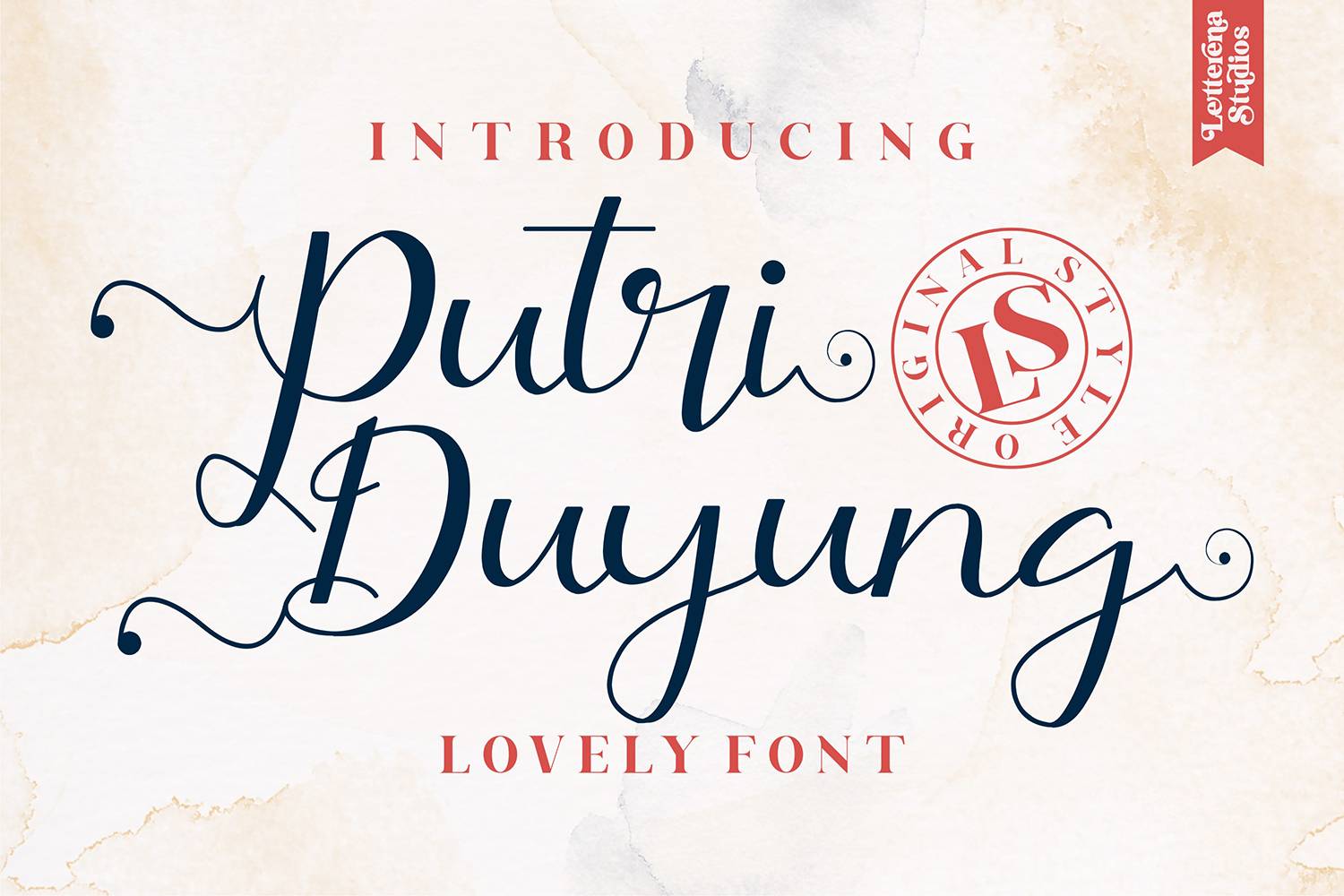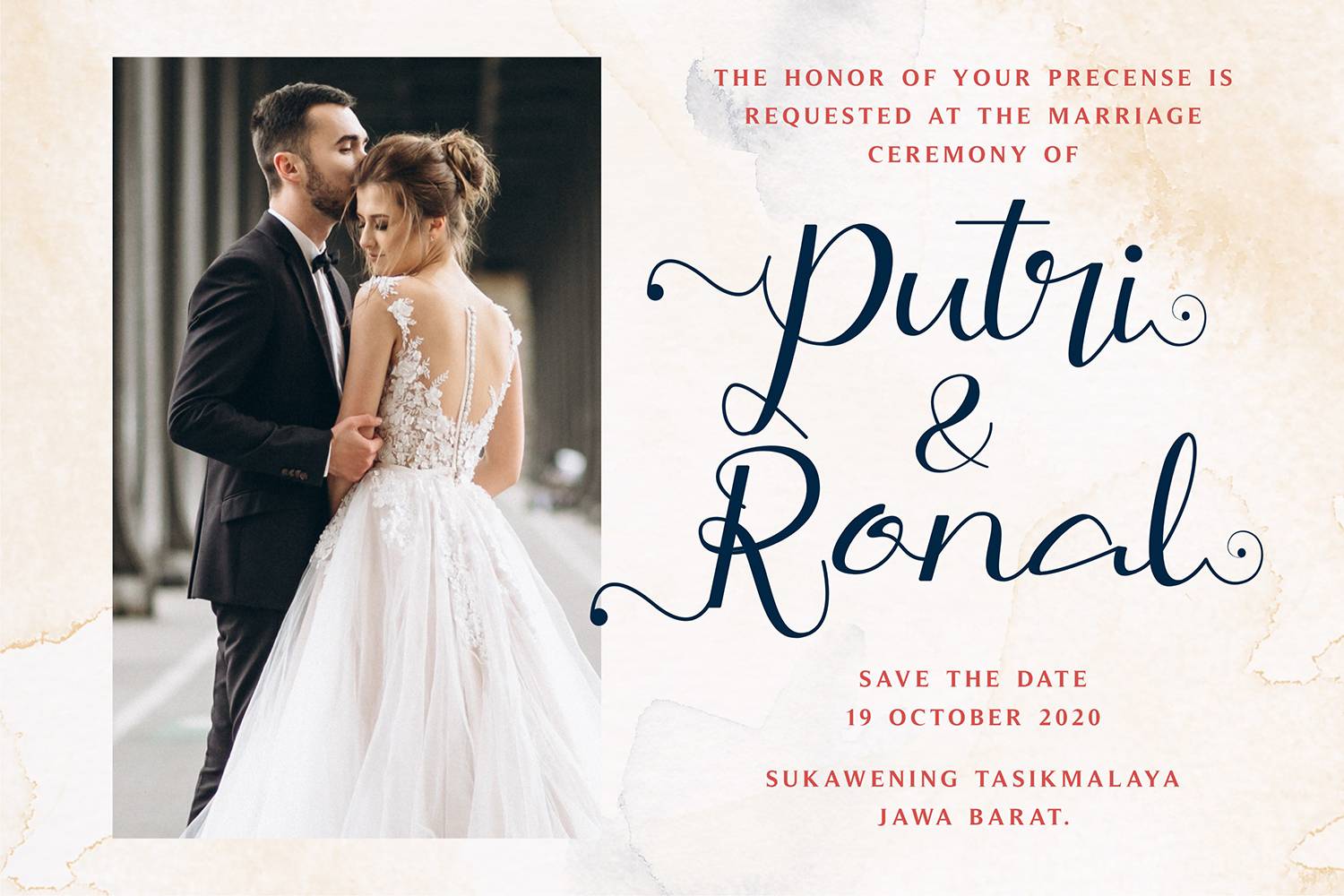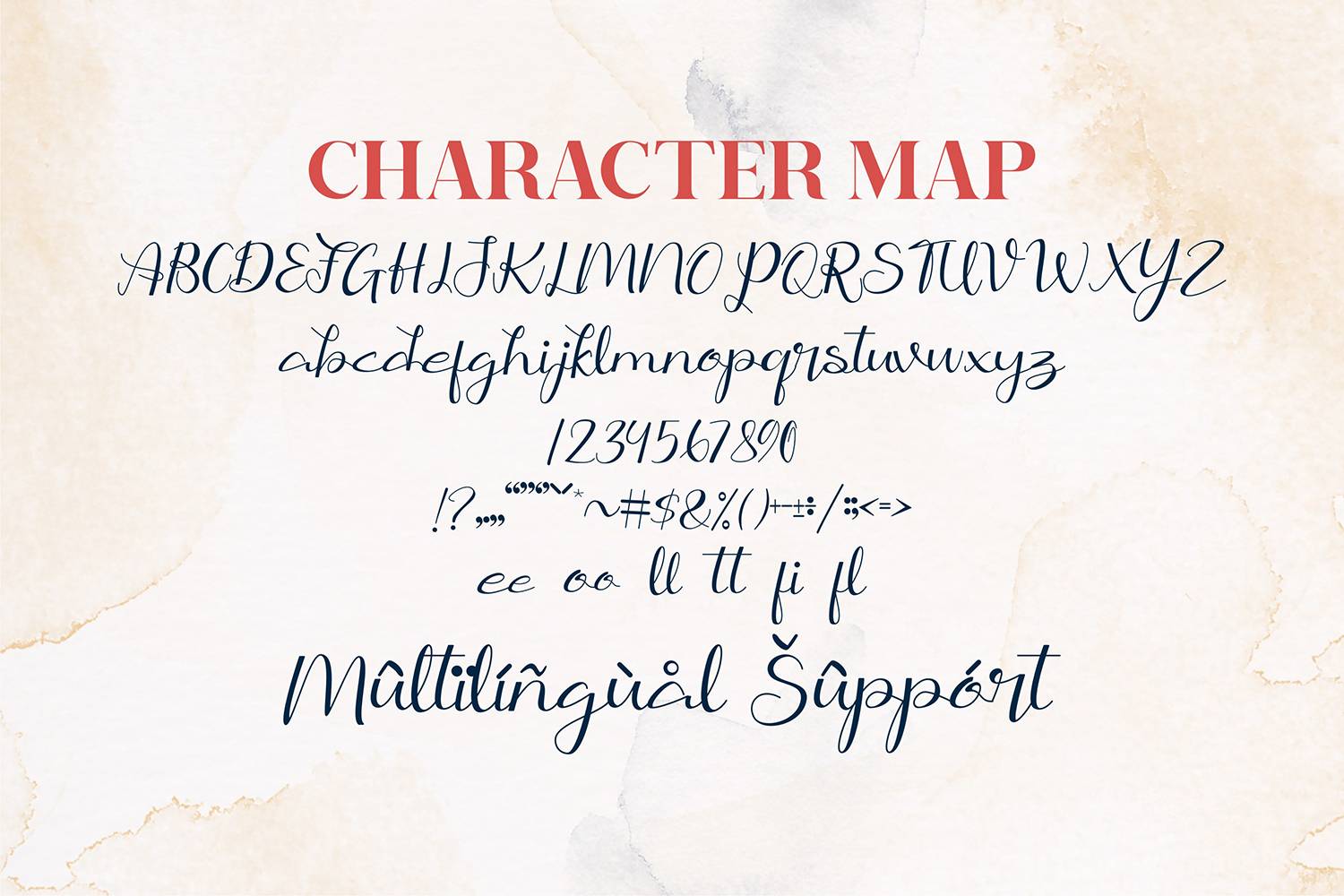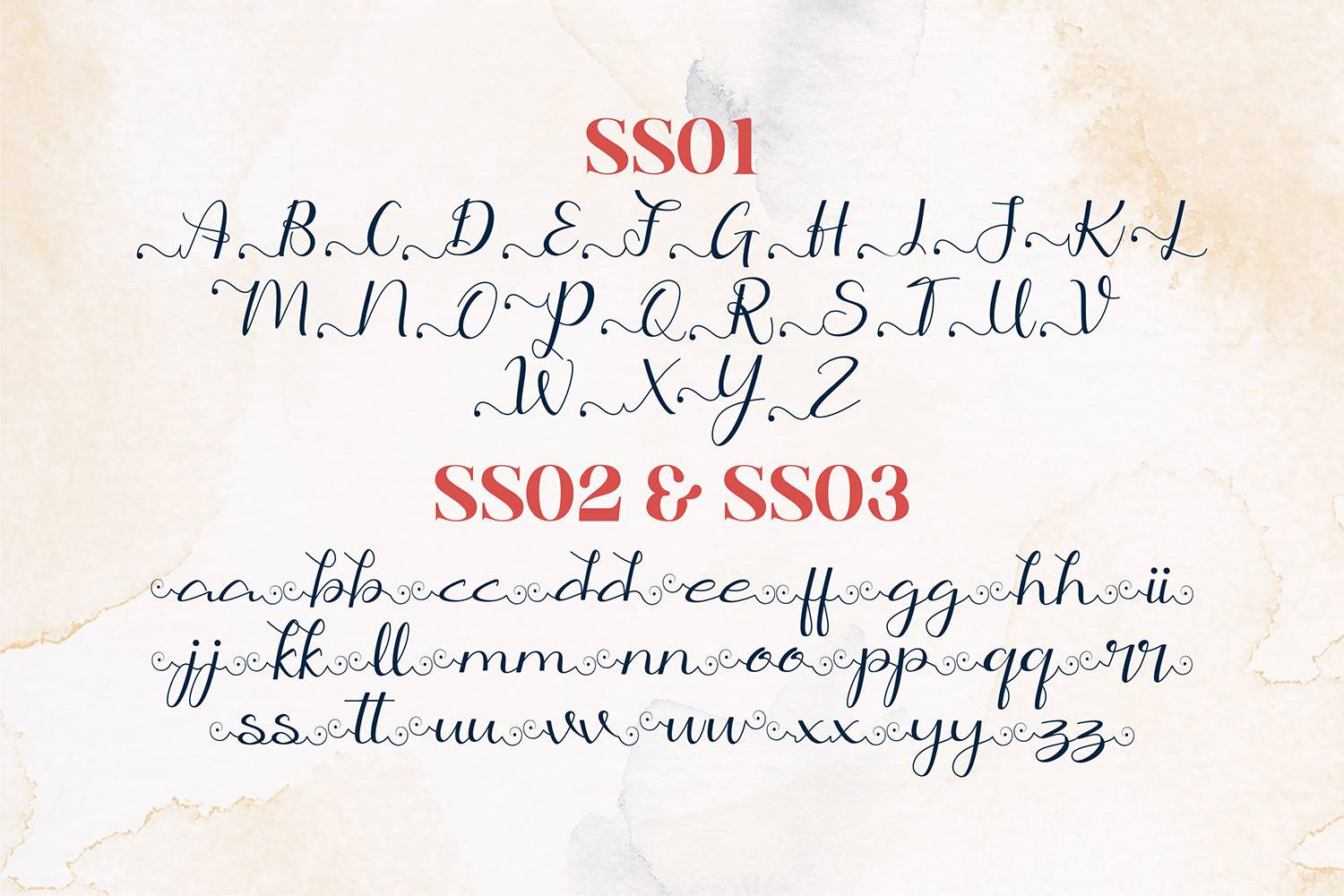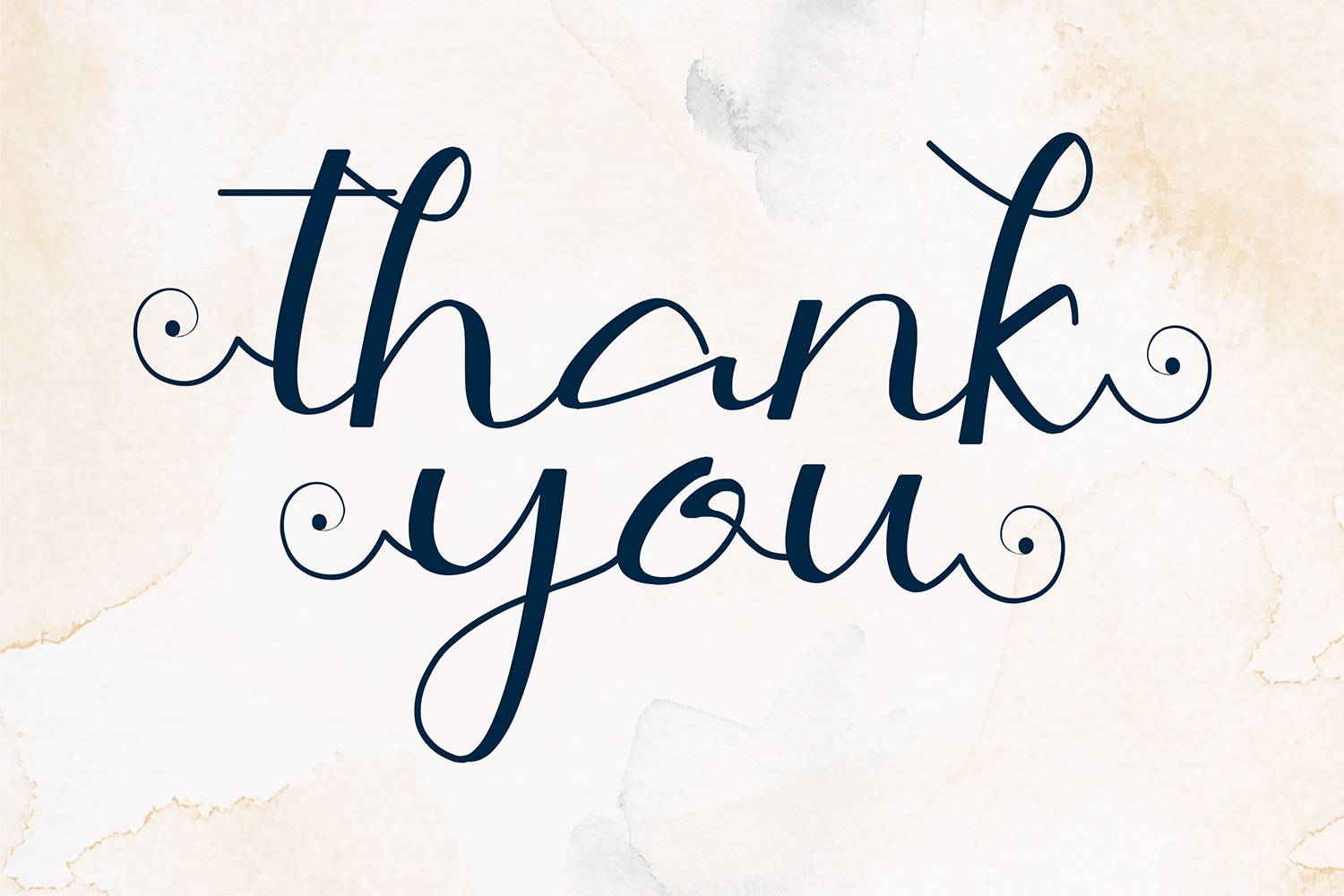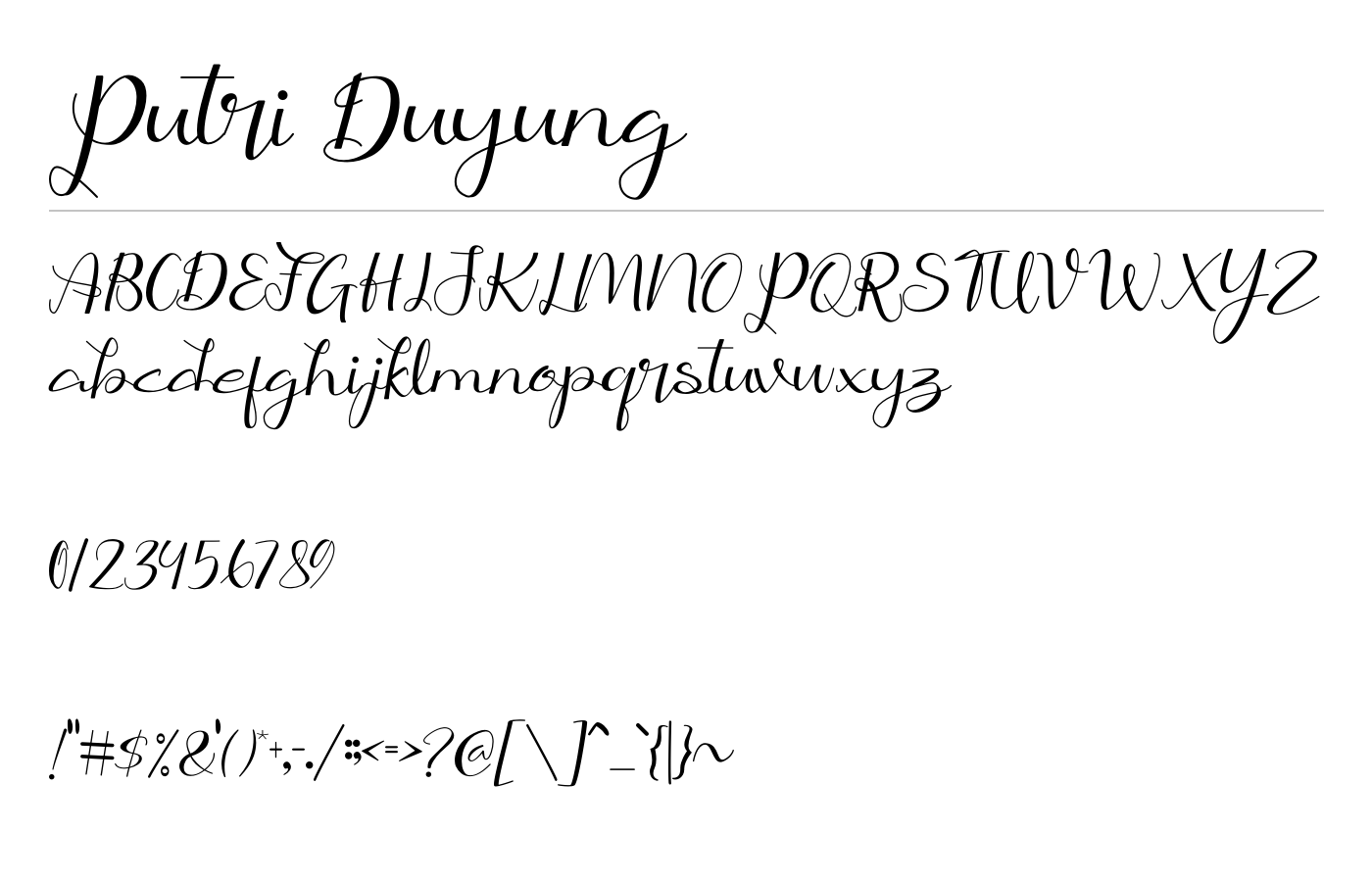
Putri Duyung is a delicate and elegant script font characterized by its slender, flowing strokes and graceful curves. It features a refined, calligraphic style with tall x-heights and a playful yet sophisticated personality, making it perfect for feminine branding, invitations, and stylish headlines. Its airy spacing and unique letterforms give it a charming, handcrafted feel that works well in creative and decorative design projects.
Putri Duyung Font
About Putri Duyung Font
| Font family | Putri Duyung Font |